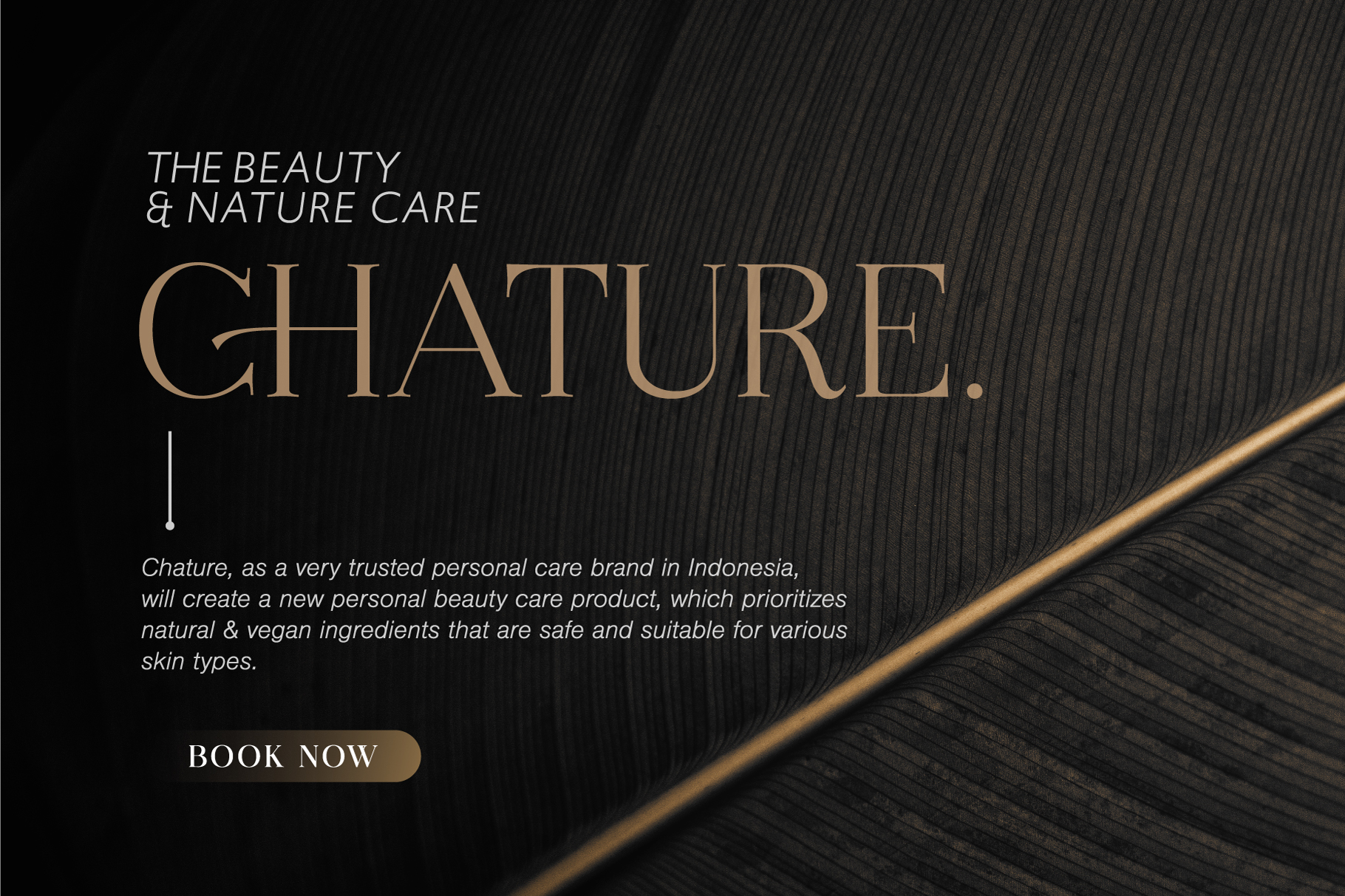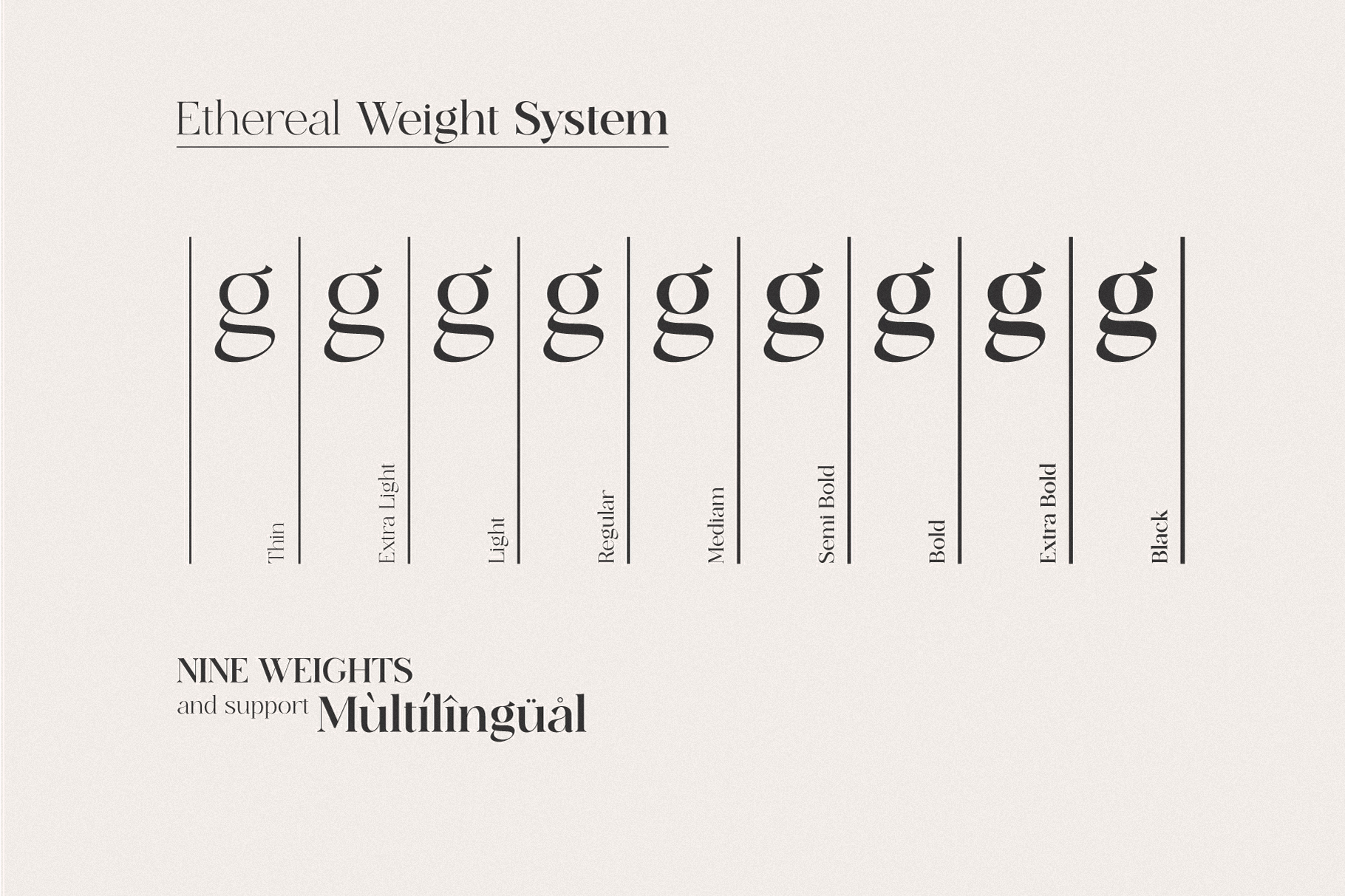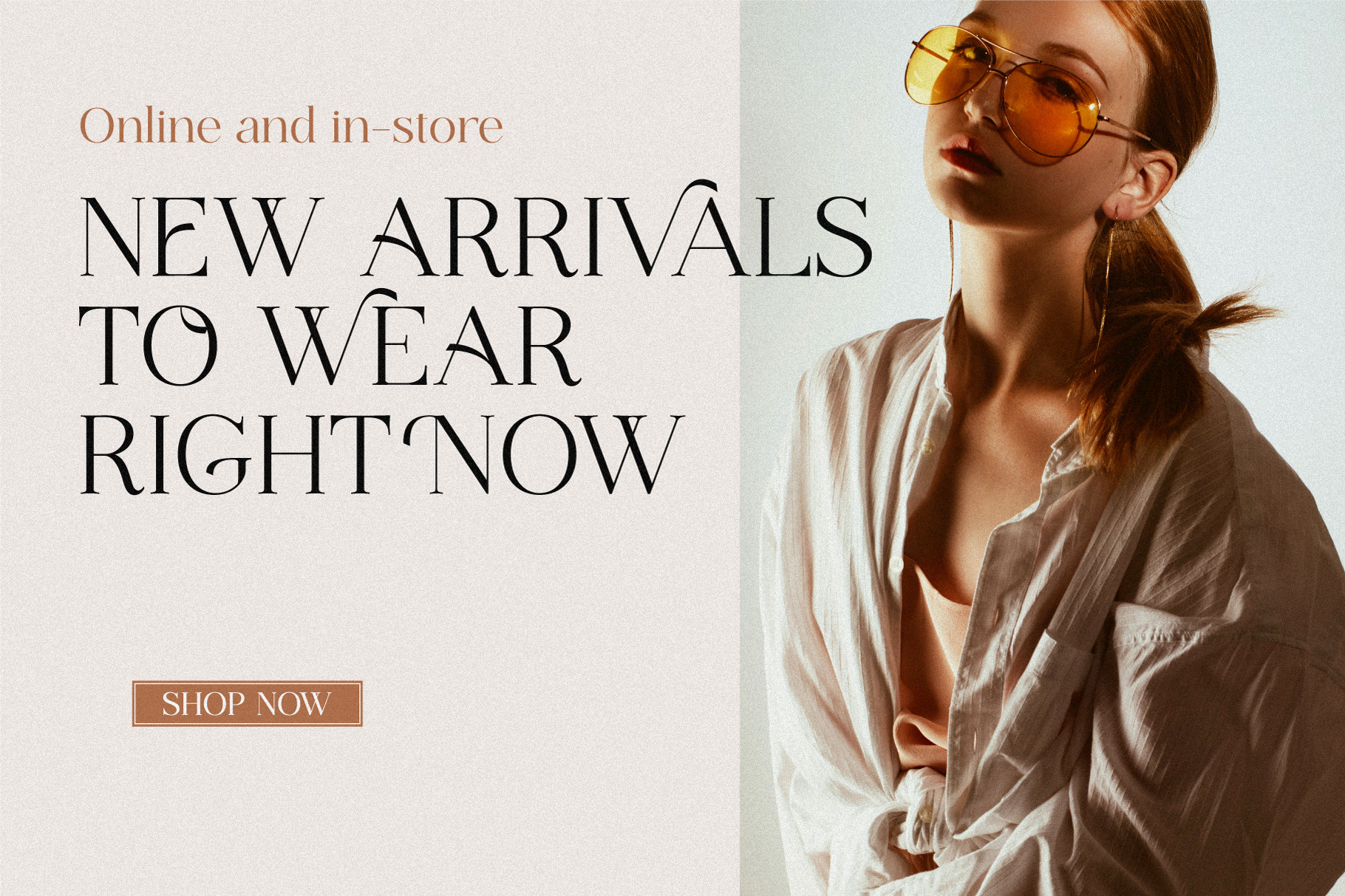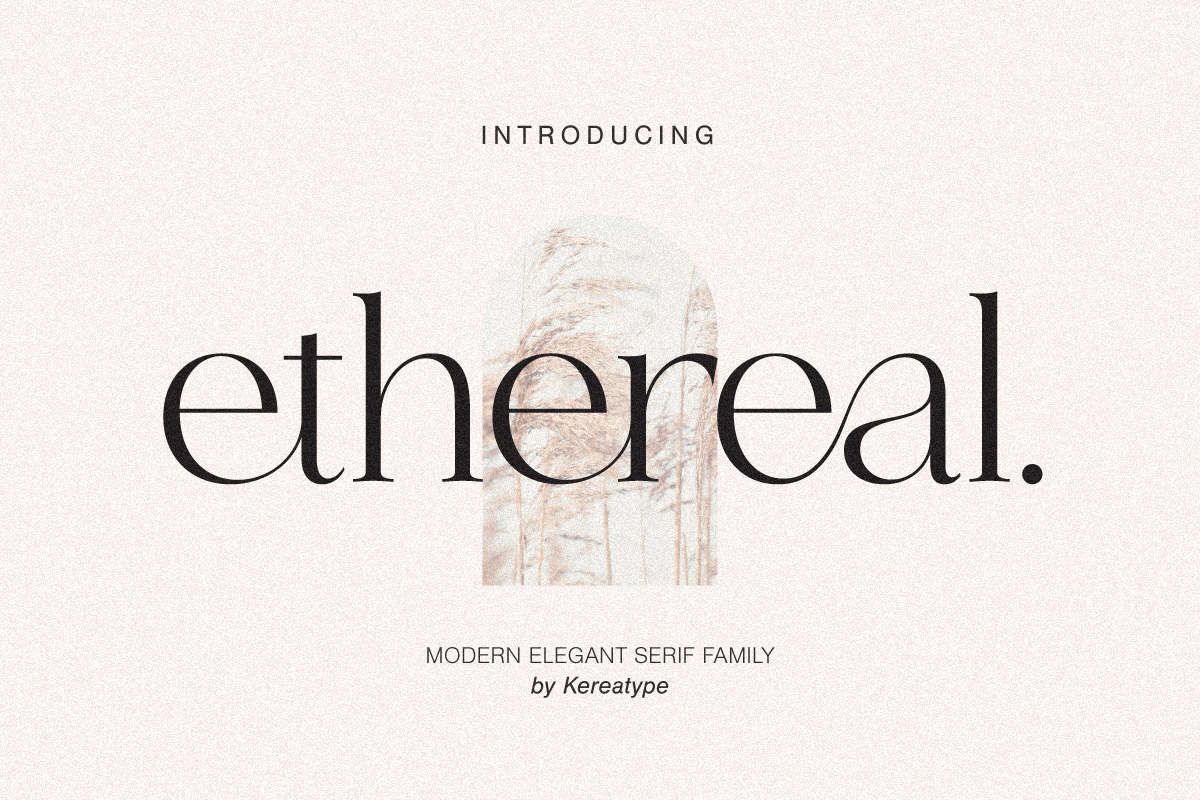
Ehereal Font – New Modern Elegant Serif Family Ethereal by Kereatype Ethereal is a Serif Family font with 9 Weight is a fashionable and modern elegant serif font with some sexy stylish extras:)